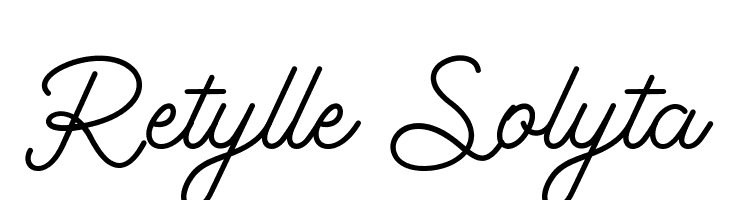
A playful, hand-drawn font with a whimsical, sketch-like style.
( Hanoded - David Kerkhoff - www.hanodedfonts.com )
A distressed, grunge-style font with a bold, stencil-like appearance.
( Fonts by Antrax - ja-fonts.iweb.pl )
A bold, angular font with a military-inspired, geometric design.
( Fonts by Tom Kolter - www.ghostsofbigfoot.com )
A bold, hand-drawn font with a textured, sketch-like appearance.
A dynamic, expressive handwritten font with fluid, cursive letterforms.
A dynamic and energetic script font with fluid, cursive letterforms.
A classic serif font with elegant strokes and pronounced serifs.
( Fonts by Youssef Habchi )
A playful, decorative font with whimsical embellishments and a hand-drawn feel.
A classic, elegant script font with flowing, connected letterforms.